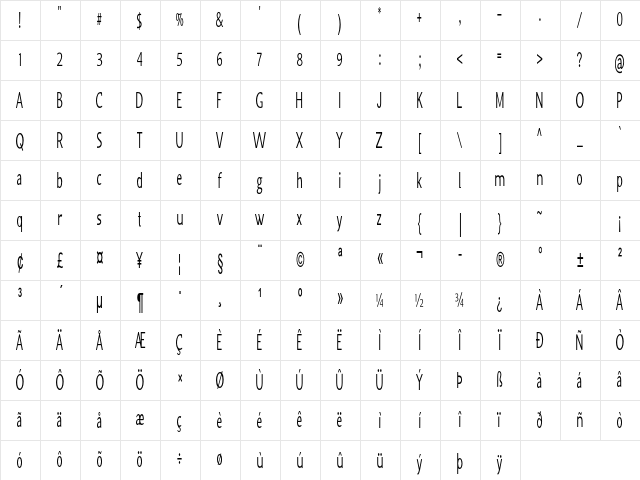
Inchworm Extra-condensed Regular
Style: Extra-condensed Regular
Design Context for Inchworm
Inchworm is a composed and adaptable typeface that performs quietly and consistently across a wide range of design contexts. Its narrow stance lets it pack a punch even in space-constrained designs.